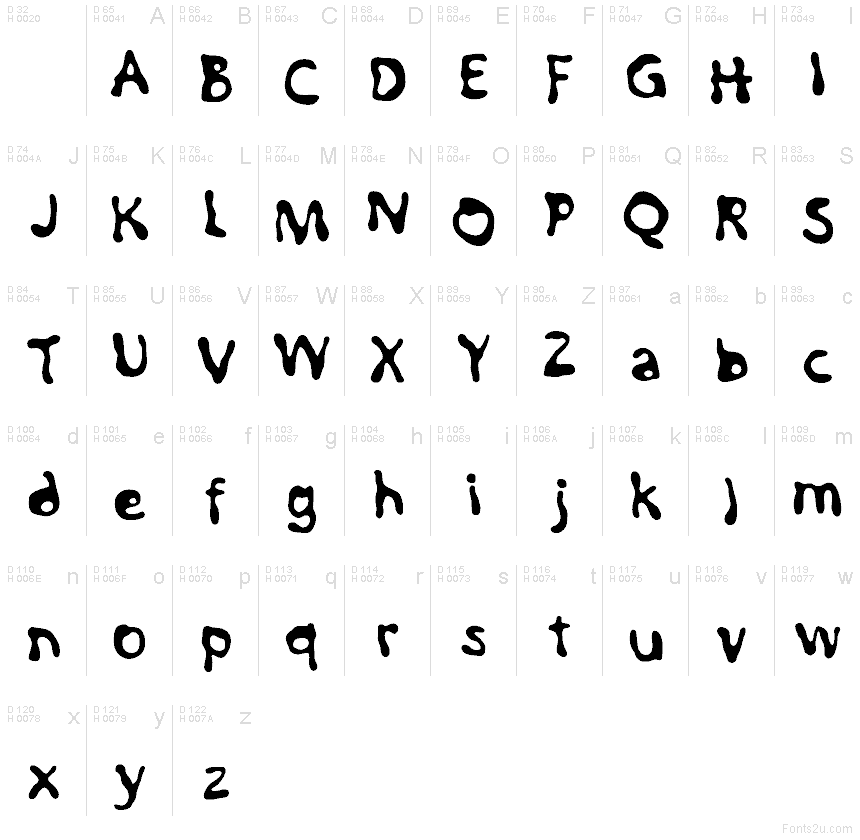
CS Destry Regular Demo
CS Destry font by Craft Supply Co. is a display distorted typeface that is expressive, organic, and casual. Its irregular letterforms have a handmade feel, adding a quirky and stylish touch suitable for all designers who wish to bring attention to their design projects.
Use this free display font in headings, paragraphs, posters, flyers, banners, brochures, book covers and more. Use it on branding designs and particularly product packaging (like cereal boxes) where attractive typography is needed. Other possible uses include videos or simple social media posts with text overlays.